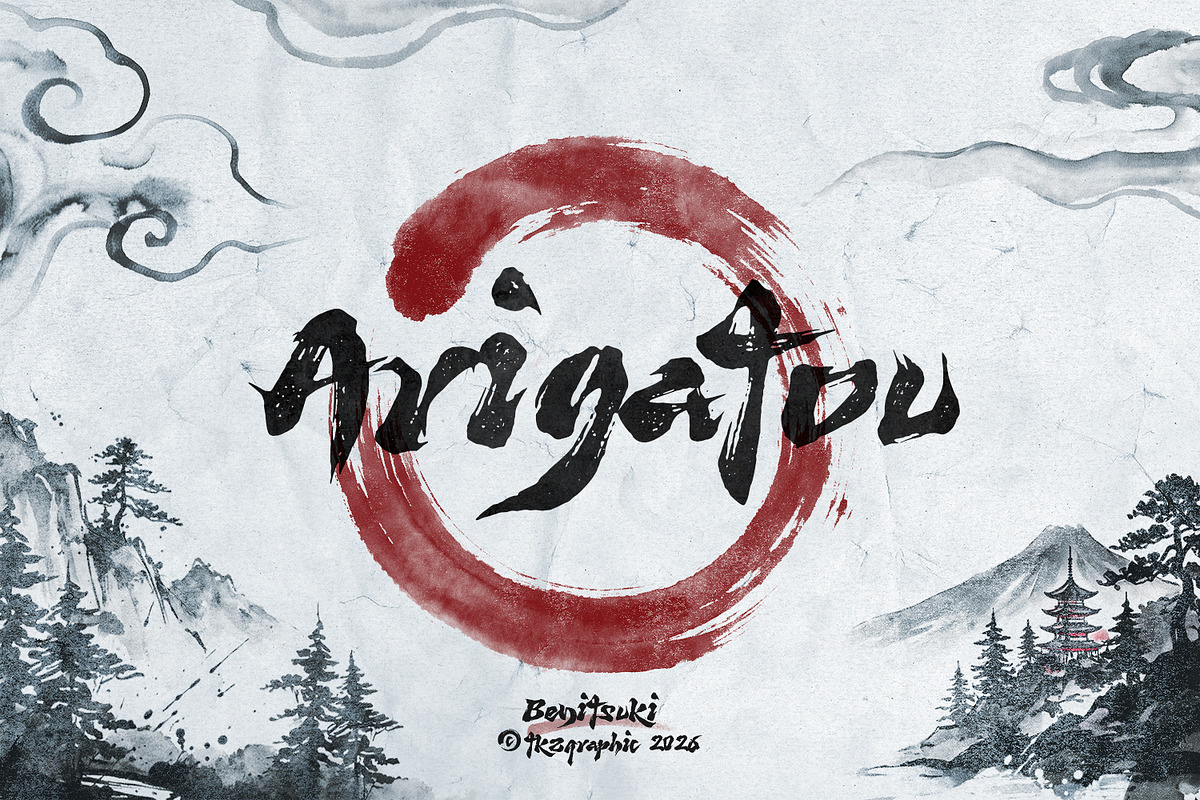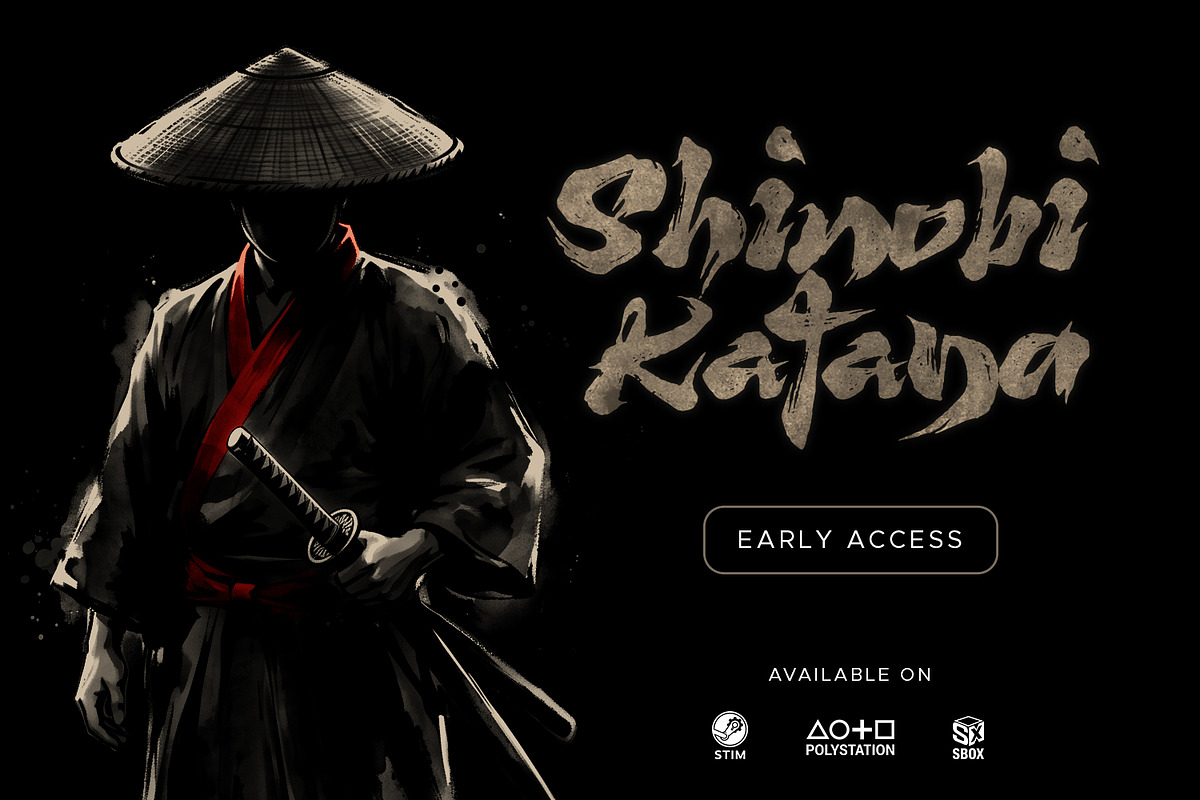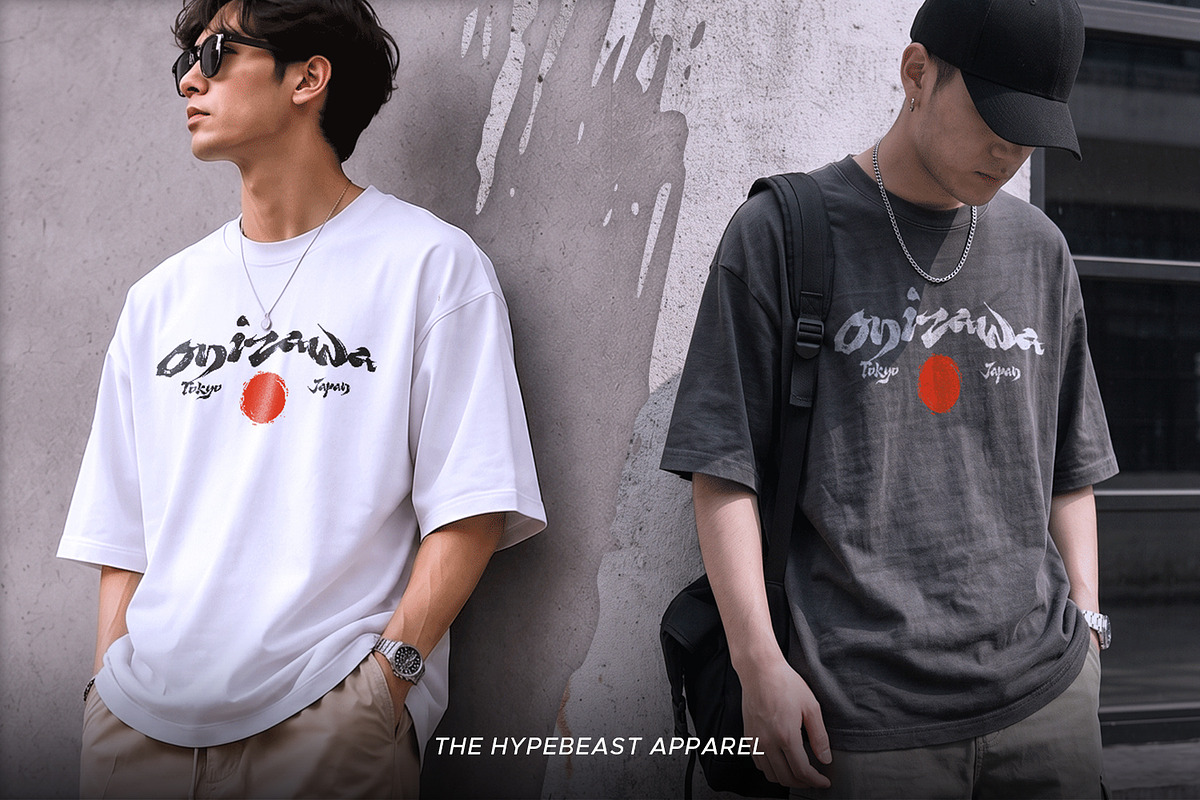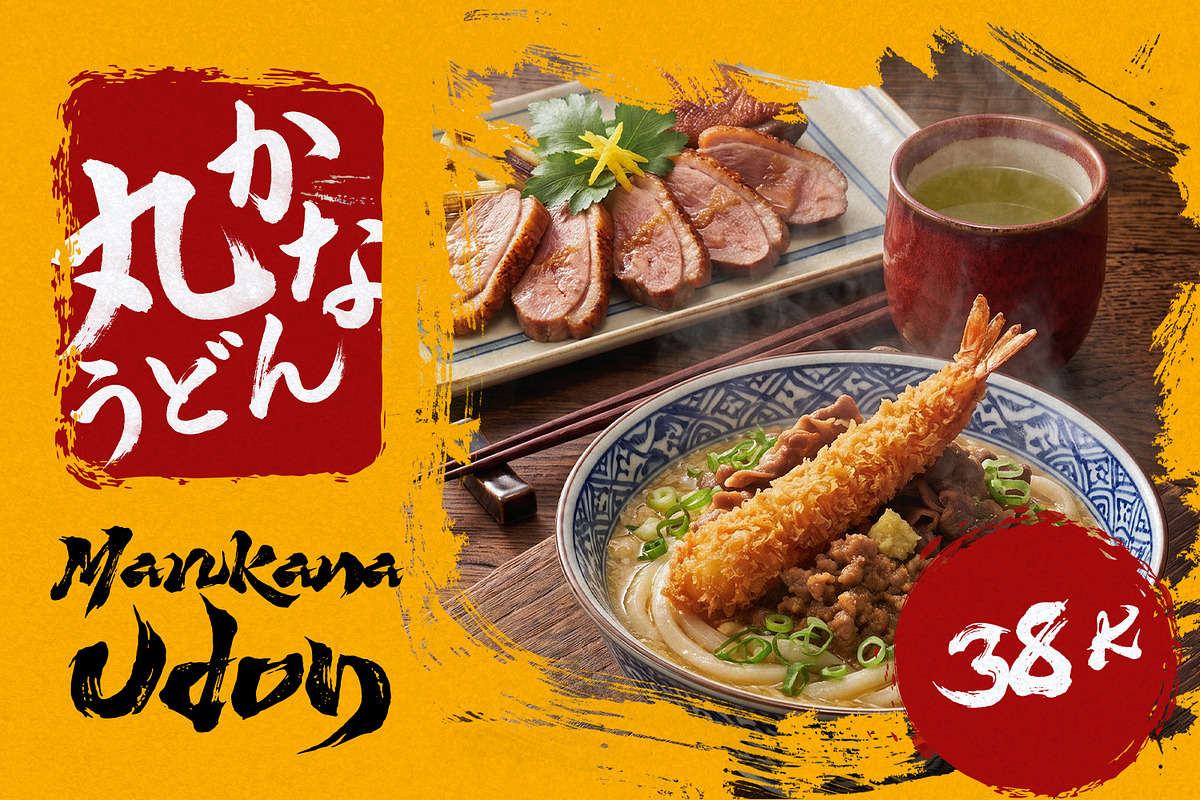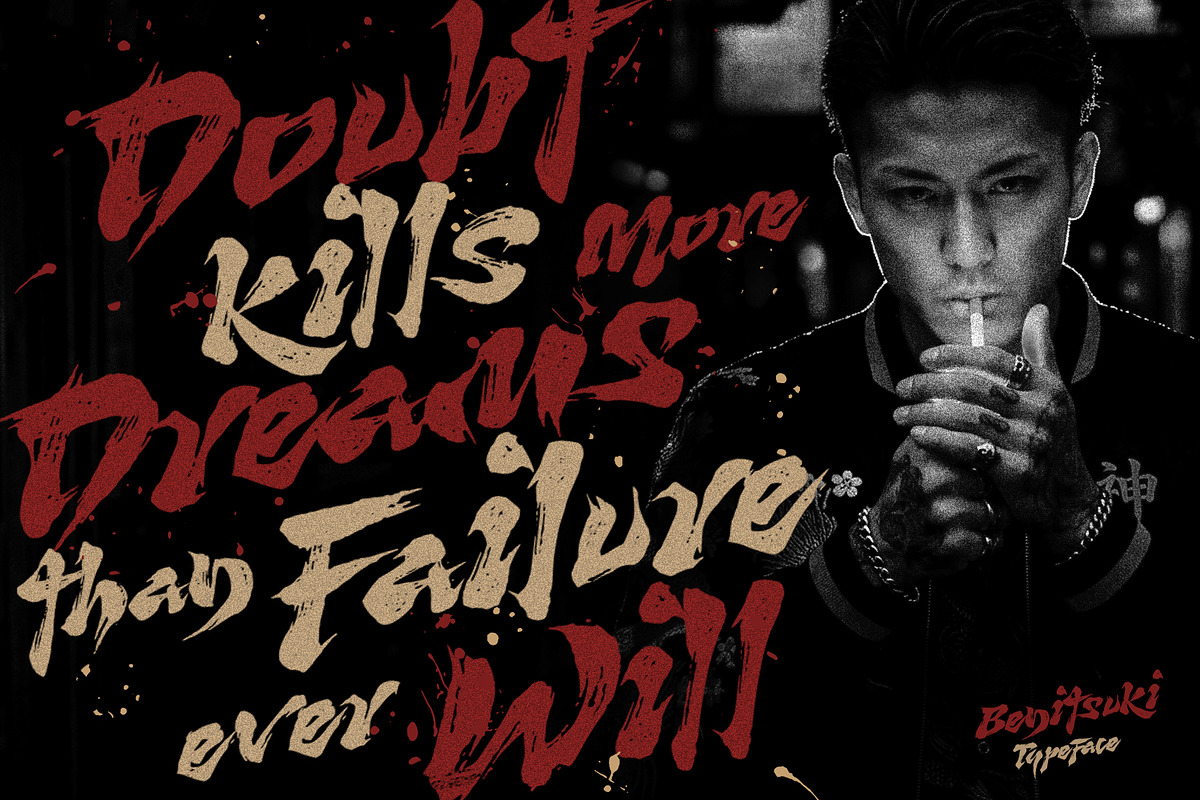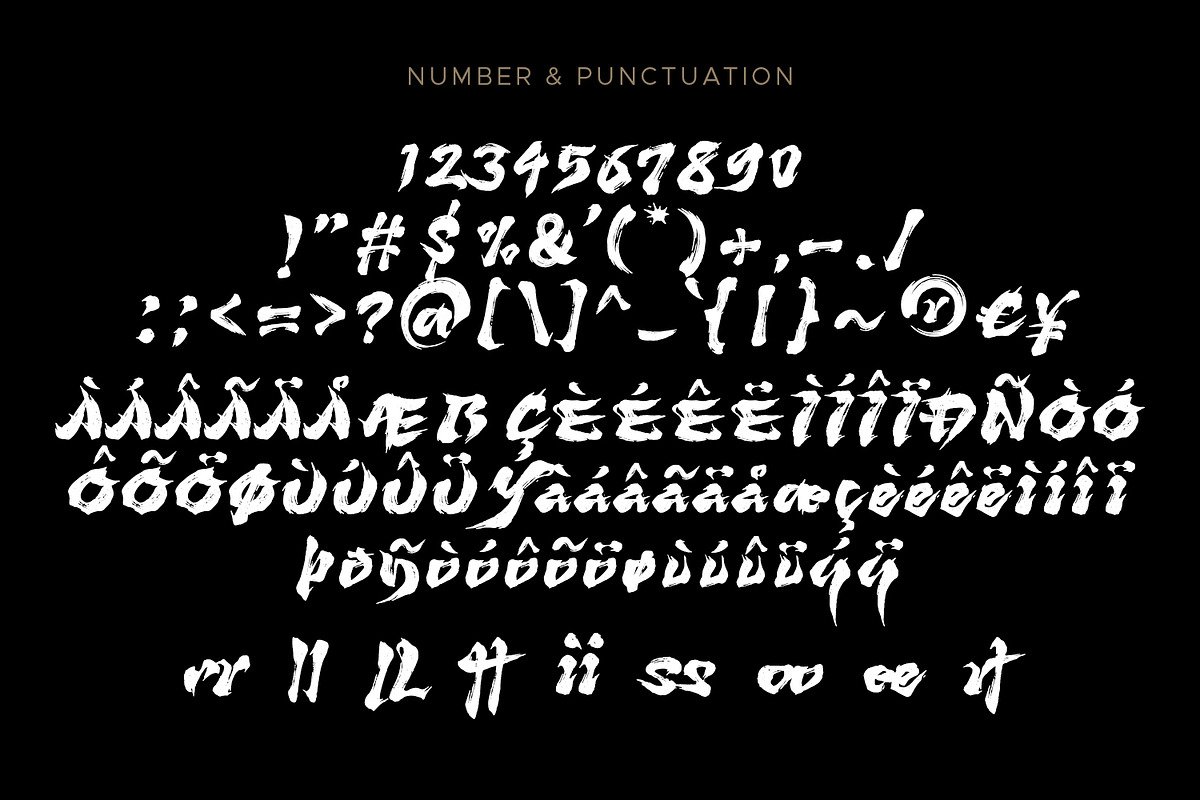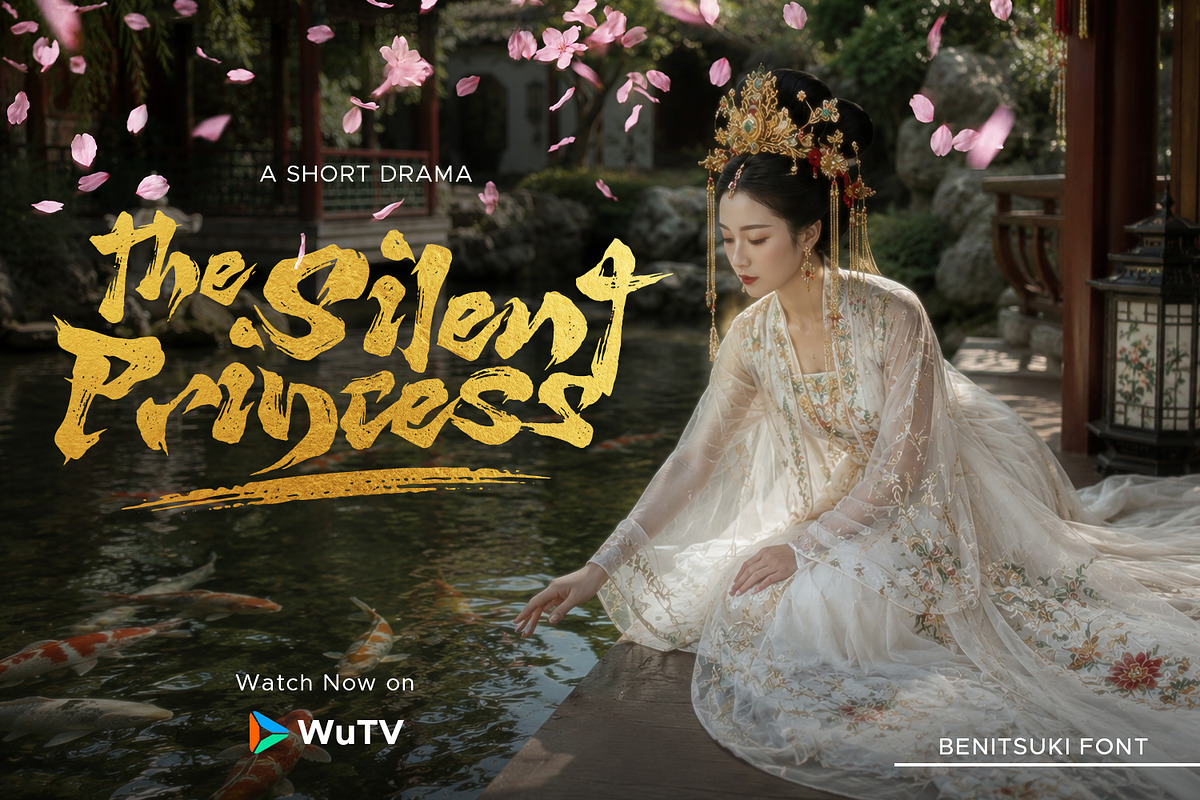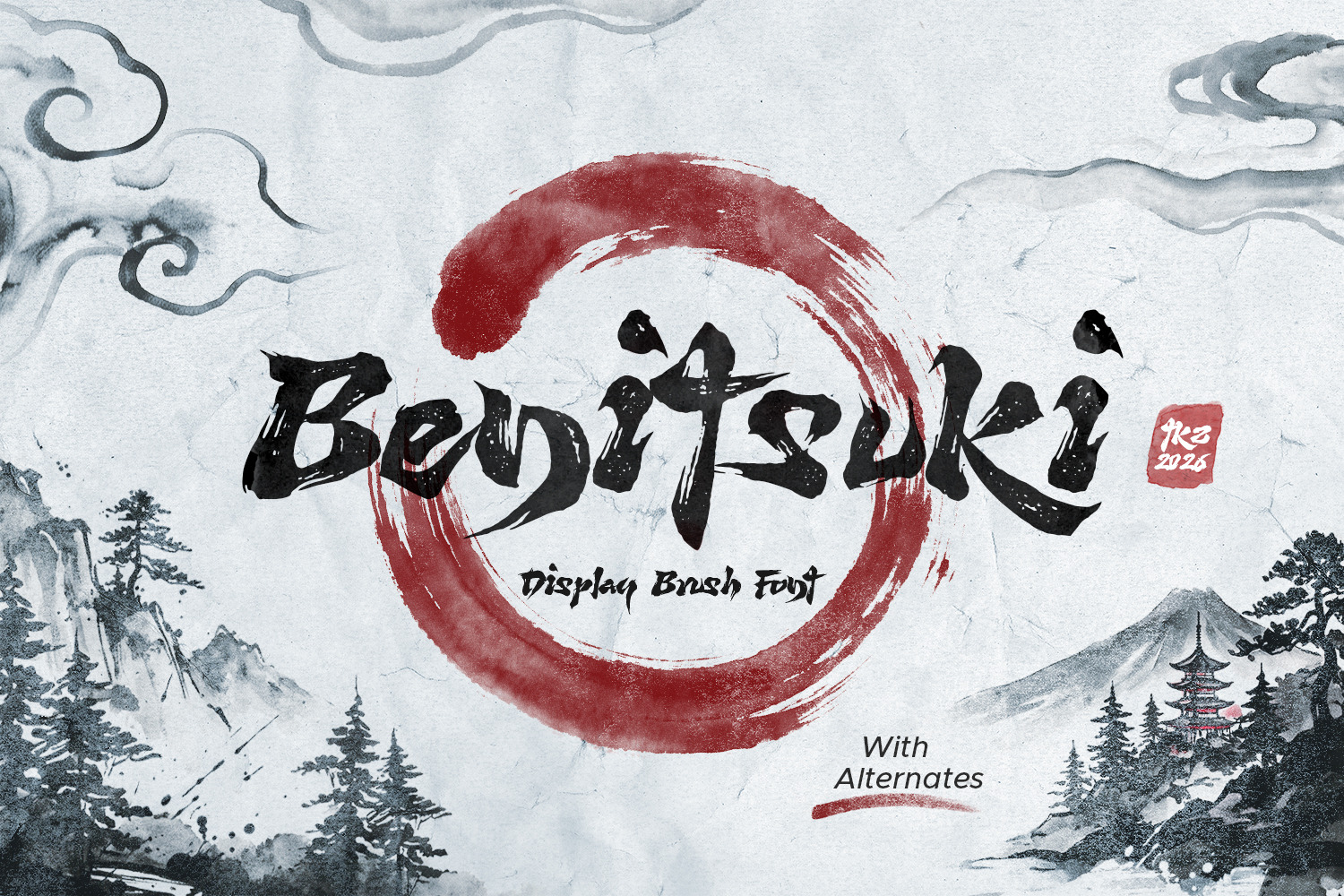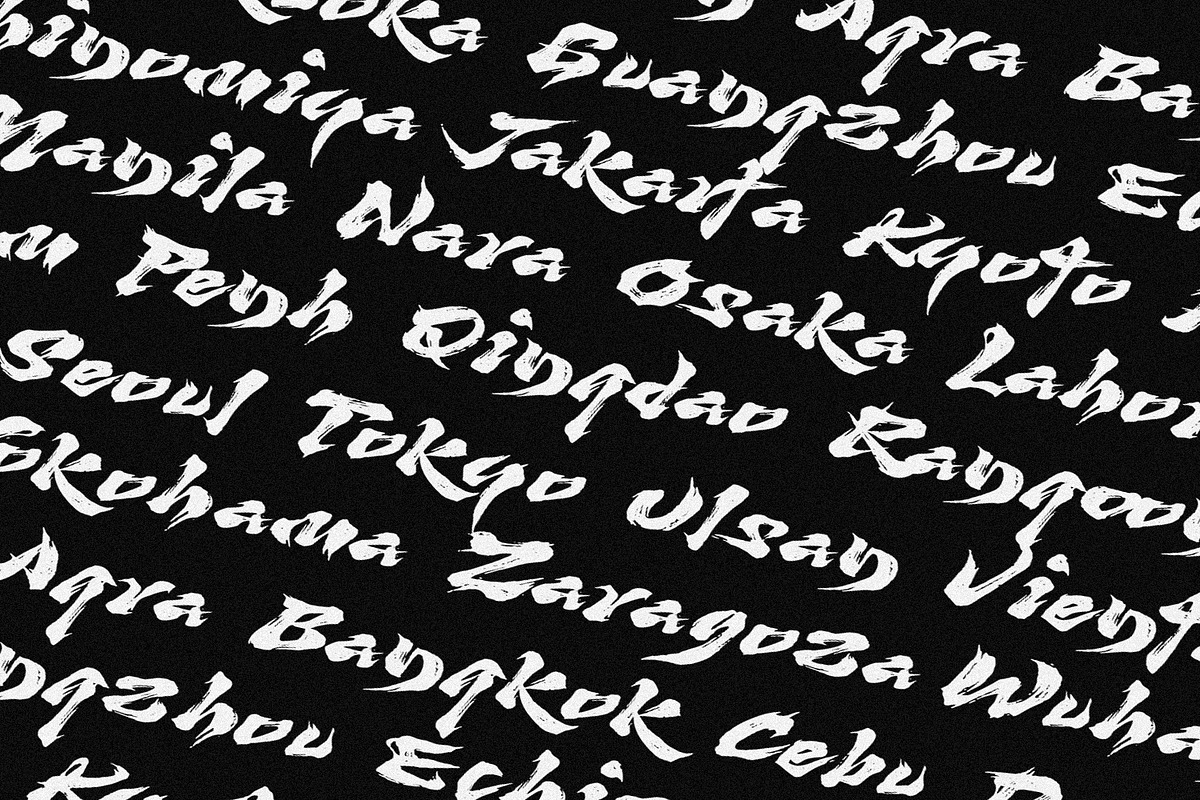
Benitsuki - Display Brush Font
Benitsuki is a natural bold brush display font that captures the raw energy of traditional East Asian calligraphy. With its dynamic, sweeping strokes and detailed textured edges, this expressive typeface delivers an organic, custom-lettered feel. Included alternate characters allow you to bring a unique, timeless, and cinematic atmosphere to your designs.
Perfect for logos, branding, product packaging, posters, game titles, movie titles, and apparel, Benitsuki infuses authentic, dynamic brushwork into any creative project.
Standard Characters & Alternates
OpenType Ligatures